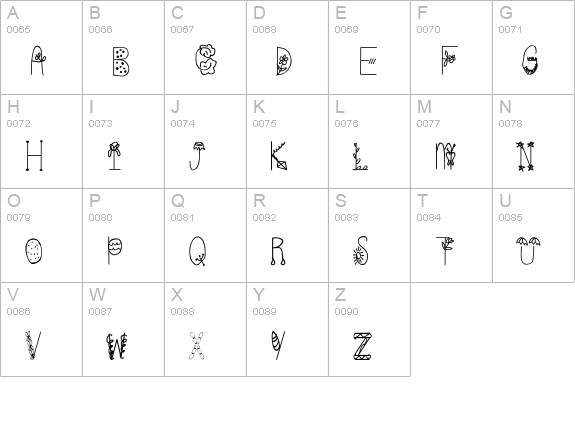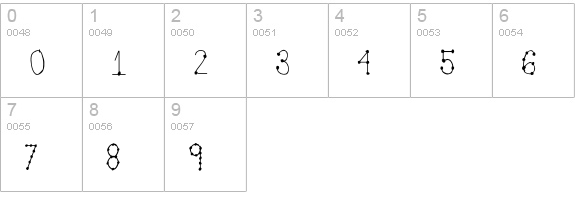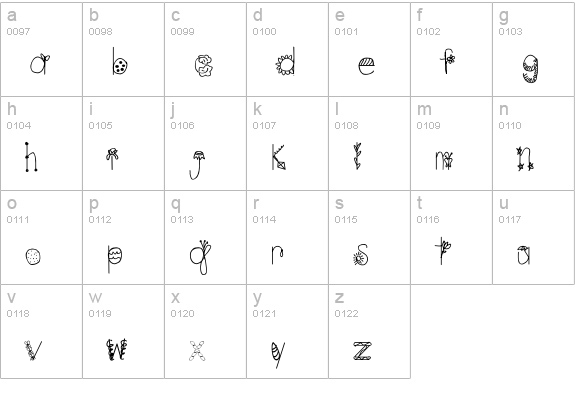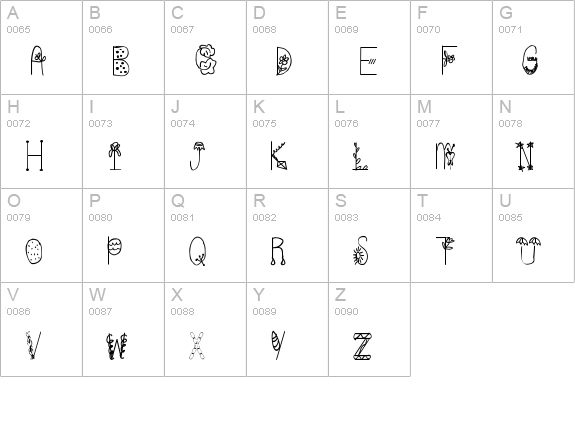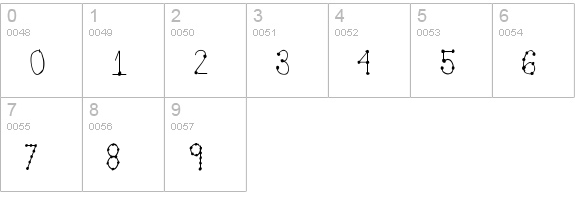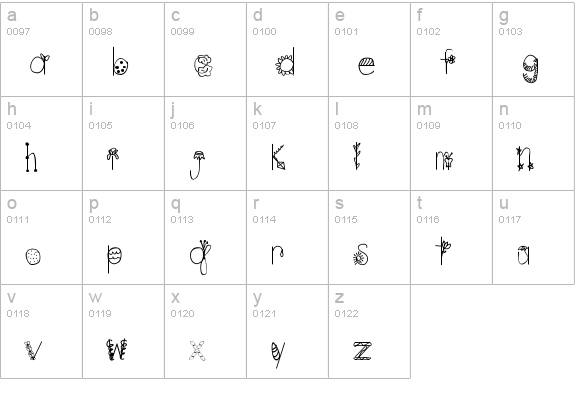
Spring Time Font Details
Introducing Spring Time, a whimsical and vibrant font that perfectly captures the essence of the blooming season. With its playful curves and fluid lines, this font brings a sense of joy and freshness to any design project. Whether you're creating invitations for a springtime soiree or designing a cheerful logo, Spring Time is sure to add a touch of charm. What makes Spring Time even more appealing is that it is freely available to download at FontsMarket.com. That's right – this delightful font can be yours at no cost! Simply visit FontsMarket.com and start exploring the endless possibilities that Spring Time has to offer. Designed with versatility in mind, Spring Time is perfect for a wide range of creative endeavors. Its bold and legible characters make it ideal for headlines and titles, while its intricate details and decorative elements add a touch of elegance to any text. From posters and flyers to branding materials and social media graphics, Spring Time will bring your designs to life with its vibrant energy. Not only does Spring Time offer a visually stunning aesthetic, but it also boasts impeccable readability. Each letter and glyph is carefully crafted to ensure clarity and ease of reading, making it a font that is both beautiful and functional. Whether you're working on a print or digital project, Spring Time will make sure your message is delivered with style and clarity. So why wait? Embrace the spirit of springtime and add a dash of whimsy to your designs with Spring Time font. With its playful charm, versatile nature, and the fact that it is freely available to download at FontsMarket.com, Spring Time is a must-have for any designer or creative enthusiast. Download it today and let the blossoming beauty of Spring Time inspire your next masterpiece.